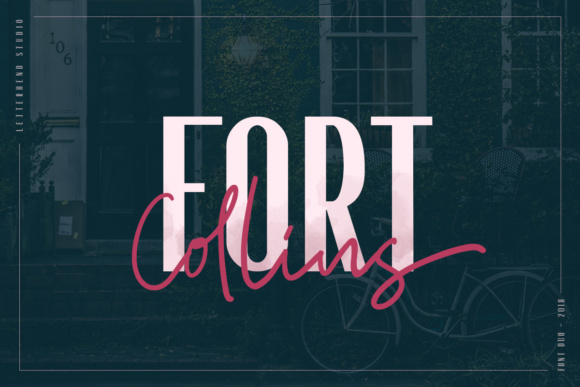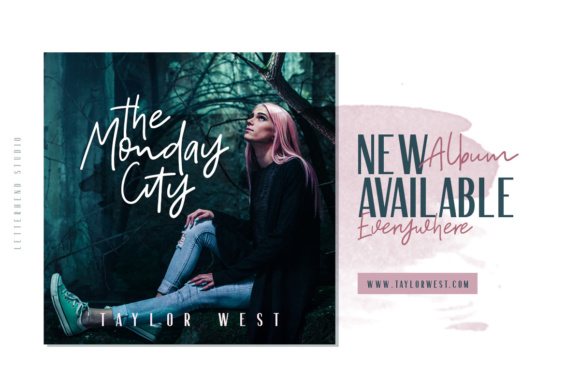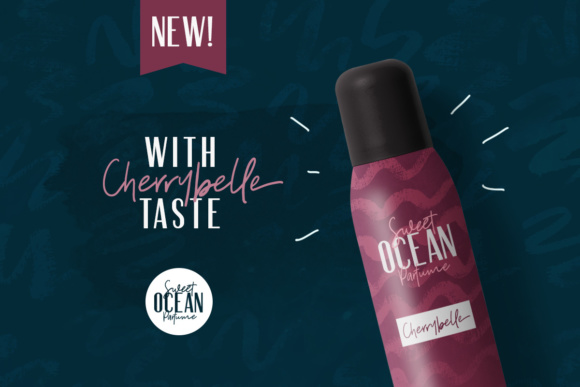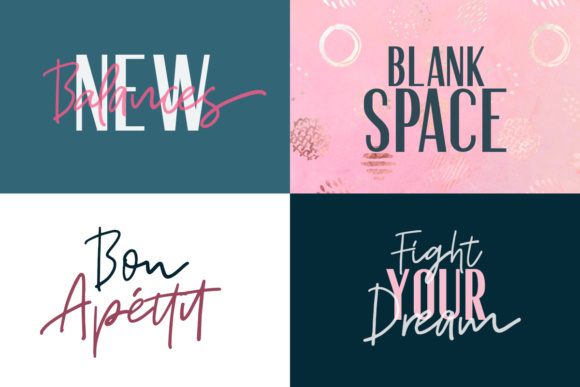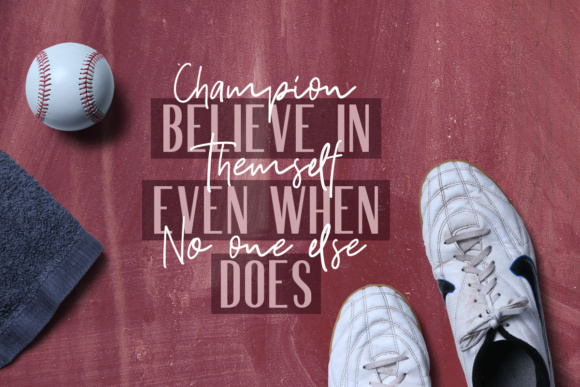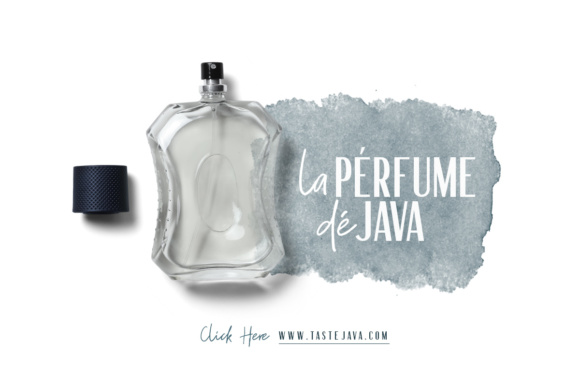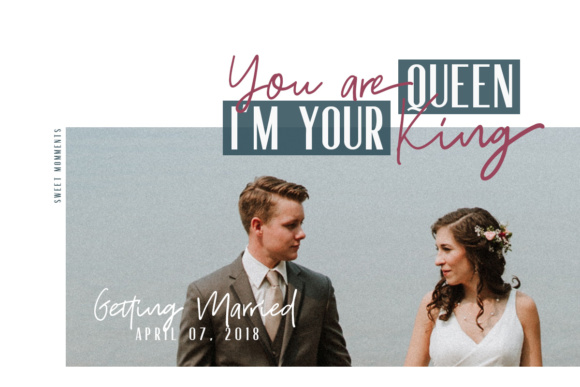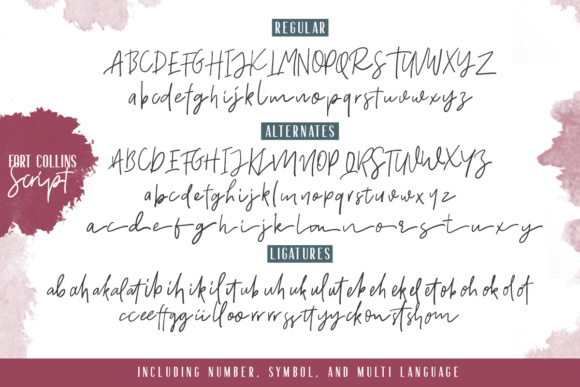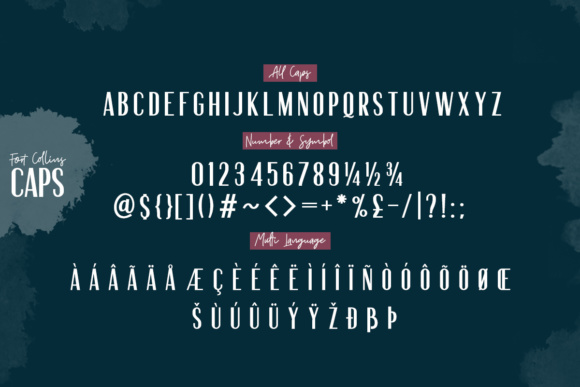
Fort Collins Font
About Fort Collins Font
Fort Collins will give your design a classy and casual look at the same time. The condensed sans combined with the natural hand writing script are the perfect match for anyone who needs a typeface for headlines, logos, invitations, advertising and much more!